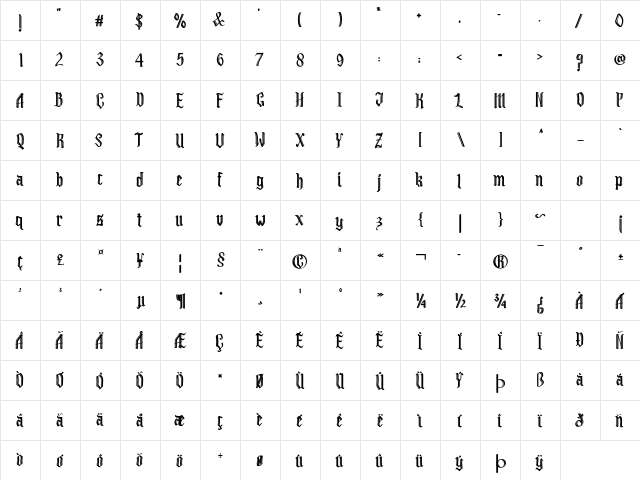
Kramood Regular
| Designer | Nico Muslib |
Design Context for Kramood Typeface
Kramood is a composed and adaptable typeface that performs quietly and consistently across a wide range of design contexts.